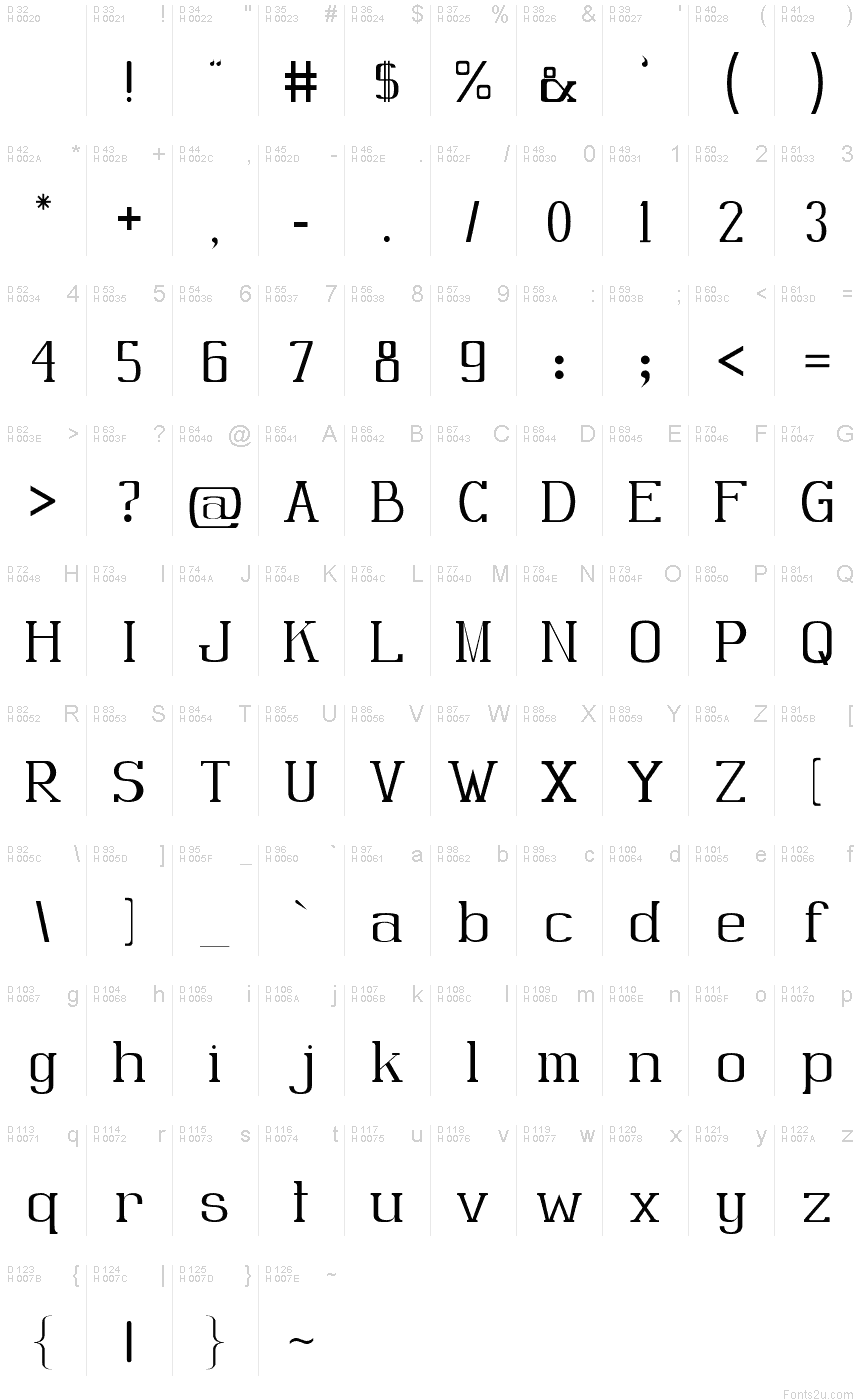
Gabriel Serif Thin by Gabriel Mark Perida is a free high-contrast serif font with tall, stately proportions. Broad vertical strokes meet hairline serifs and fine curves, giving the letters a crisp fashion-editorial edge.
Its dramatic thick-thin pattern echoes the sharp geometry of studio photography and pared-back illustration. That connection suits fashion magazines, fragrance packaging, gallery posters, and cultural event programs. In these settings, lettering can become part of the image itself, acting as an architectural frame rather than routine text.